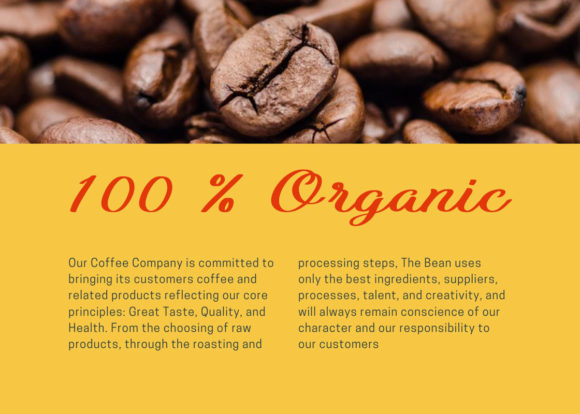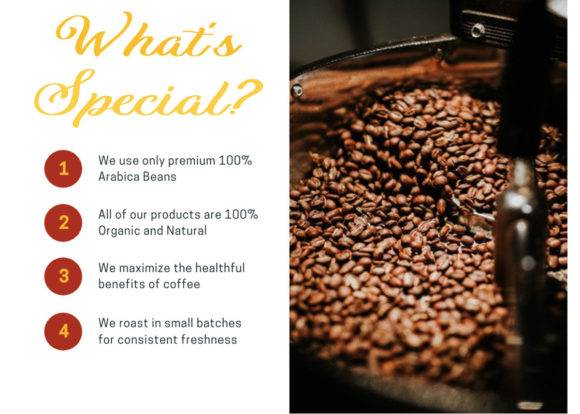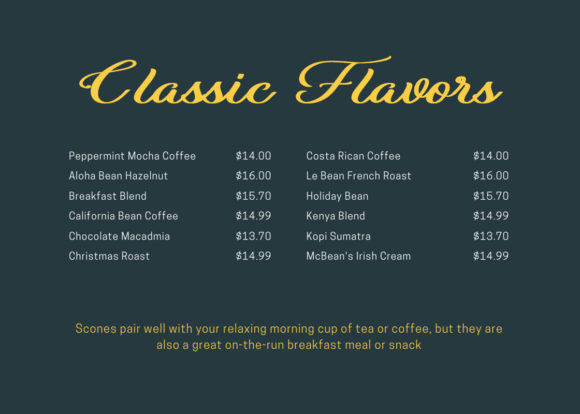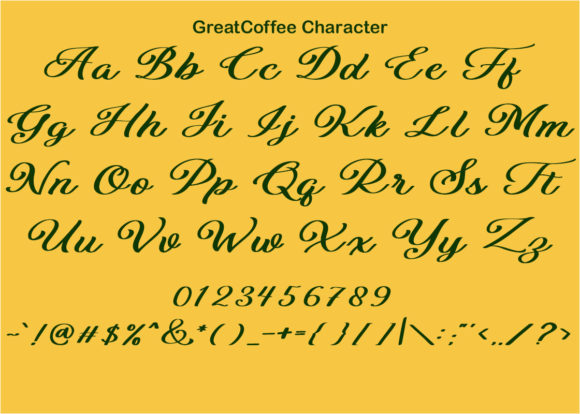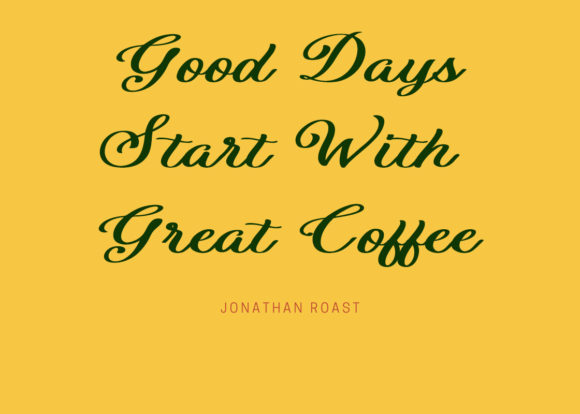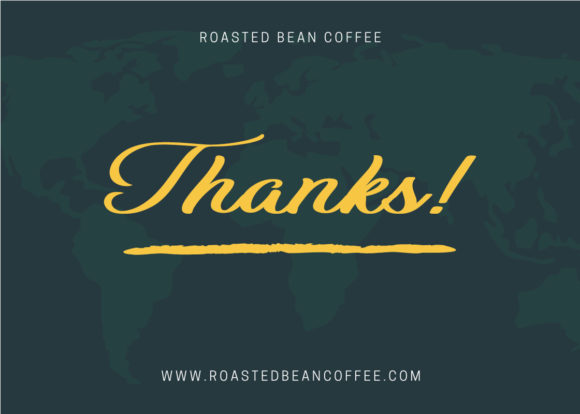
Introduction to Great Coffee Font
Do you ever find yourself stuck in a creative rut, staring blankly at a blank page or screen, searching for the perfect font to bring your vision to life? For designers, the right font can be the difference between a mediocre design and a masterpiece. And that’s exactly why we’re excited to introduce you to the Great Coffee Font, a beautiful, high-quality script font that’s perfect for any creative project.
Whether you’re designing packaging for a new product, creating invitations for a special occasion, or simply looking for a design resource to elevate your next flyer or event poster, the Great Coffee Font is a valuable addition to any designer’s toolkit. Its well-balanced design and transparent background make it a versatile choice for a wide range of applications.
Key Features of Great Coffee Font
- High-quality, hand-drawn design ideal for creative projects and personal use
- Transparent background for easy use on any background or design resource
- Includes a range of weights and styles to suit various design needs
- Designed with a modern, minimalist aesthetic for a clean and sophisticated look
- Perfect for designers, artists, and writers looking for a unique and versatile font for their next creative project
Honest Review: Great Coffee Font
As a designer, I’m always on the lookout for high-quality fonts that can elevate my creative projects. Recently, I stumbled upon the Great Coffee Font and was excited to give it a try.
What works well is the font’s clean and modern design, which makes it perfect for a wide range of applications, from digital products to print materials. The font is also free to download, making it a great resource for designers who are working on a budget. Additionally, the transparent background option allows for easy customization and versatility.
- ✨ Clean and modern design
- ✨ Transparent background option
However, there are a few limitations to consider. The font may not be suitable for projects that require a bold, dramatic font. Additionally, the font’s design may be too minimalist for some designers’ tastes.
- ⚠️ Not ideal for bold, dramatic projects
- ⚠️ May be too minimalist for some designers
Overall, I think Great Coffee Font is a solid addition to any designer’s toolkit. While it may not be perfect for every project, its clean design and free availability make it a great resource for designers who want a high-quality font without breaking the bank.
To get the most out of the Great Coffee Font, use it with a transparent background to create a clean and modern look. Experiment with different font sizes and colors to add depth and interest to your design.
The Great Coffee Font is perfect for any creative project that requires a high-quality, modern font. Common use cases include branding, marketing materials, and social media graphics.
What is the transparency of the Great Coffee Font, and how does it work with background images?
The Great Coffee Font has a transparent background, making it easy to use with background images. The font’s transparent background allows the background image to show through, creating a seamless and professional design. This feature is particularly useful for designers working on projects that require a high level of visual cohesion.